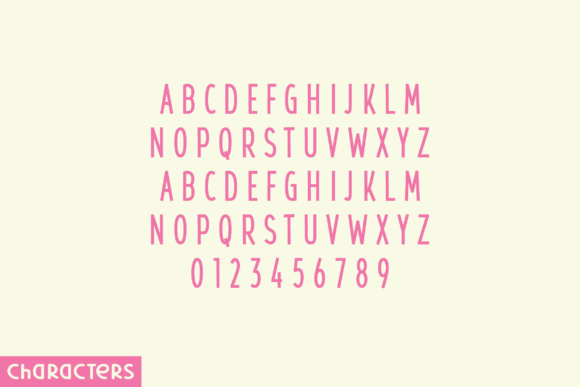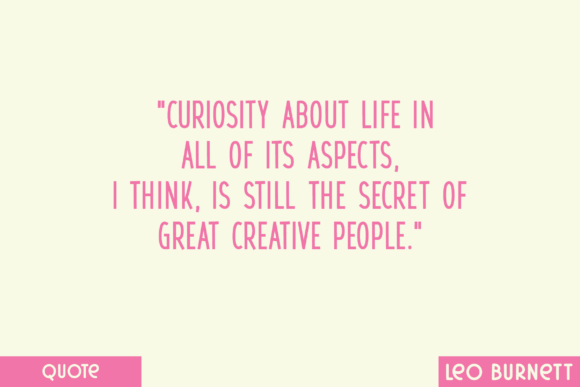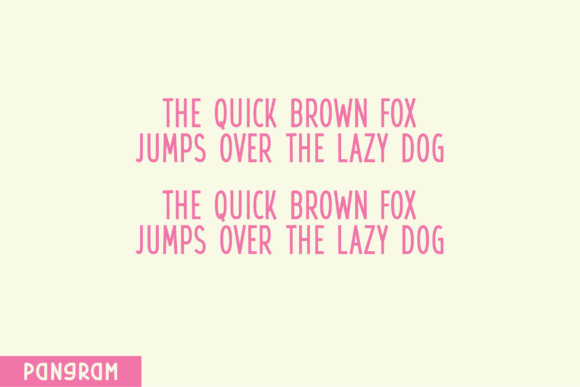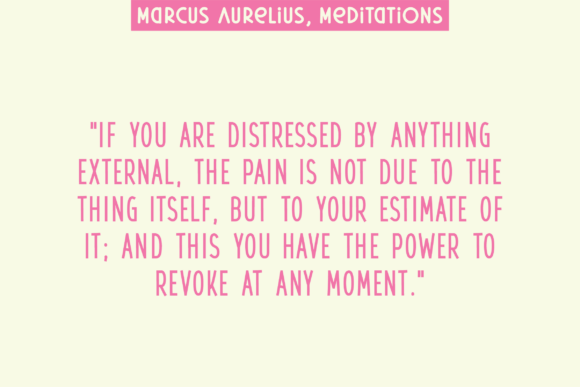
Discover the Elegance of Aurantia Font: Elevate Your Minimalist Designs
In the world of typography, the right font can make all the difference in elevating your design from ordinary to extraordinary. For those who appreciate the beauty of minimalist layouts, Aurantia Font is a game-changer. This stunning sans-serif typeface strikes the perfect balance between sophistication and a human touch, making it an ideal choice for designers and crafters looking to add a touch of elegance to their work.
The Unique Characteristics of Aurantia Font
Aurantia Font boasts elongated letterforms with a subtle, organic “wiggle” in the strokes, giving it an authentic, hand-inked appearance. This distinctive feature sets it apart from other sans-serif fonts and adds a level of sophistication to any design. The high-waisted proportions and airy structure of Aurantia create a sense of breathability, making it perfect for designs that require a clean and modern aesthetic.
Ideal Uses for Aurantia Font
So, what makes Aurantia Font so versatile? Its unique characteristics make it an excellent choice for a variety of design applications, including:
- Minimalist magazine mastheads: Add a touch of sophistication to your magazine’s header with Aurantia’s elegant and airy design.
- Luxury candle labels: Elevate your candle branding with Aurantia’s high-end feel and sophisticated vibe.
- “Clean Girl” aesthetic social media templates: Create a cohesive and stylish visual identity for your social media presence with Aurantia’s modern and breathable design.
- Wellness branding: Convey a sense of serenity and sophistication with Aurantia’s calming and elegant typography.
- Boutique skincare labels: Stand out in the skincare market with Aurantia’s unique and luxurious design.
- Modern editorial headers: Add a touch of elegance to your editorial content with Aurantia’s sophisticated and airy typography.
The Benefits of Using Aurantia Font
So, why choose Aurantia Font for your design projects? Here are just a few benefits of using this stunning typeface:
- Sophisticated and graceful: Aurantia’s elegant design exudes sophistication and refinement, making it perfect for high-end brands and designs.
- Airy and breathable: Aurantia’s high-waisted proportions and airy structure create a sense of space and freedom, making it ideal for designs that require a clean and modern aesthetic.
- Versatile: Aurantia Font is suitable for a wide range of design applications, from minimalist magazine mastheads to luxury candle labels.
- Unique: Aurantia’s subtle, organic “wiggle” in the strokes sets it apart from other sans-serif fonts and adds a level of authenticity to your designs.
Tips for Using Aurantia Font Effectively
To get the most out of Aurantia Font, here are a few tips to keep in mind:
- Pair with complementary fonts: Experiment with pairing Aurantia with other fonts to create a unique and visually appealing typography combination.
- Use for headlines and titles: Aurantia’s elegant design makes it perfect for headlines and titles, where it can add a touch of sophistication and refinement.
- Experiment with different sizes: Aurantia’s high-waisted proportions and airy structure make it suitable for use at a range of sizes, from small captions to large headlines.
In conclusion, Aurantia Font is a stunning sans-serif typeface that is sure to elevate your minimalist designs. With its unique characteristics, versatility, and sophisticated vibe, it’s the perfect choice for designers and crafters looking to add a touch of elegance to their work. Whether you’re creating a minimalist magazine masthead, luxury candle labels, or “Clean Girl” aesthetic social media templates, Aurantia Font is the perfect choice.